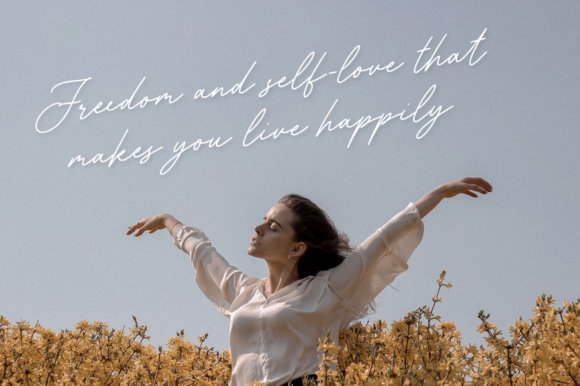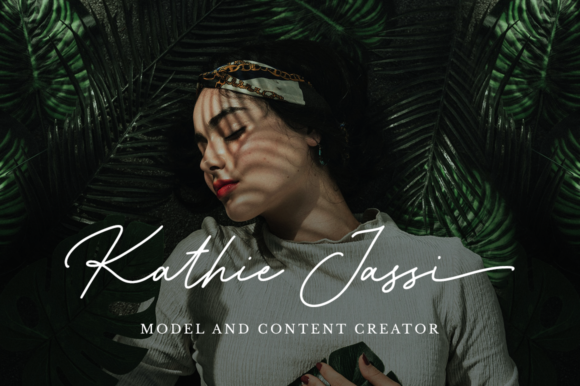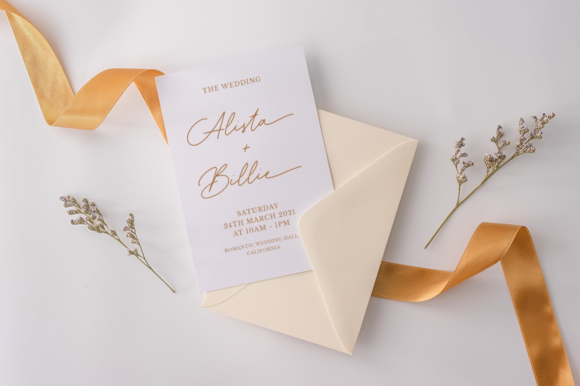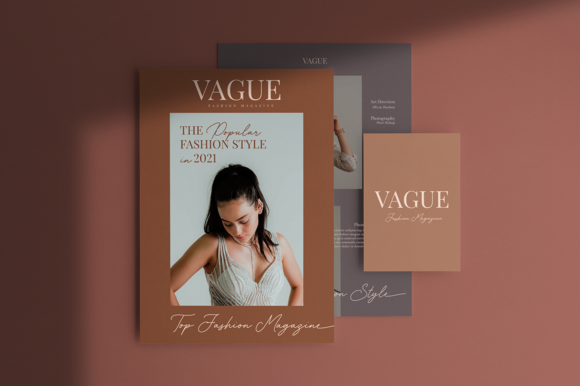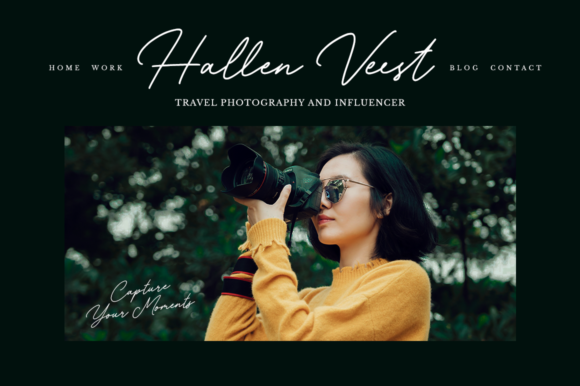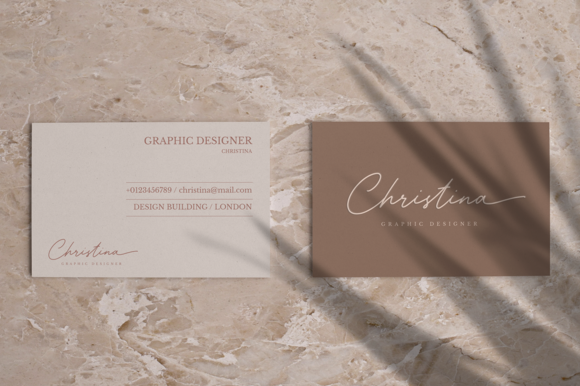
Adding a Touch of Elegance to Your Designs
Have you ever been working on a design project, pouring your heart and soul into it, and then suddenly, you stumble upon the perfect font to bring it all together? That’s exactly what happened to me when I discovered the Astallya Script font. Its unique blend of classic calligraphy and modern style is like a breath of fresh air for designers.
Astallya Font is designed to add a touch of elegance and sophistication to any design project. With its dancing baseline and PUA encoding, you can access a wealth of special features, including alternate glyphs and ligatures, to give your design a truly unique look. Whether you’re working on a wedding invitation, a branding project, or a social media campaign, Astallya Font is the perfect tool to help you stand out from the crowd.
Astallya Font Key Features
- Character Set: The font features a comprehensive character set, including Latin, Cyrillic, and Greek alphabets, as well as a range of punctuation and symbol characters.
- Unique Characteristics: Astallya Font boasts a distinctive, modern design with a strong emphasis on elegance and sophistication. Its unique letterforms and subtle flair make it an excellent choice for high-end branding and design projects.
- Font Style: Astallya Font is available in two styles: Regular and Bold, allowing designers to create a range of visual effects and emphasize key messages.
Astallya Font Review
Overall, I have mixed feelings about the Astallya font. While it has some great qualities, there are also some limitations that might make it less desirable for certain projects.
- The Astallya font has a unique, elegant design that’s perfect for titles and headings. Its sophisticated look adds a touch of luxury to any project.
- The font’s high x-height makes it highly legible, even at smaller sizes. This is especially useful for body text where readability is crucial.
- Astallya supports a wide range of languages, making it a great choice for international projects.
- The font’s design can be a bit too ornate for some projects, which might make it difficult to read in certain contexts.
- The font’s weight distribution is a bit uneven, which can lead to inconsistent spacing in longer text blocks.
- Astallya doesn’t come with as many font weights as some other fonts, which might limit its flexibility in certain situations.
While Astallya has some great qualities, its limitations might make it less desirable for certain projects. However, its unique design and high legibility make it a great choice for projects that require a touch of elegance and sophistication.
Astallya Font: A Practical Application Guide
Getting the Most Out of Astallya Font
To get the most out of Astallya Font, use it in conjunction with other design elements, such as bold text, images, and shapes. Experiment with different font sizes and styles to create visually appealing designs.
Astallya Font is ideal for creating eye-catching headings, titles, and logos. It is also suitable for use in brochures, flyers, and other marketing materials where a unique and modern font is desired.
Alternatives to Astallya Font
Montserrat is a sans-serif font that originated from Google Fonts. It is a clean and modern font, perfect for digital designs, such as websites, apps, and social media. Montserrat is ideal for use in body text, headings, and titles.
Compared to Astallya Font, Montserrat is more versatile and has a wider range of weights and styles. Astallya Font has a more elegant and refined feel, while Montserrat is more modern and edgy.